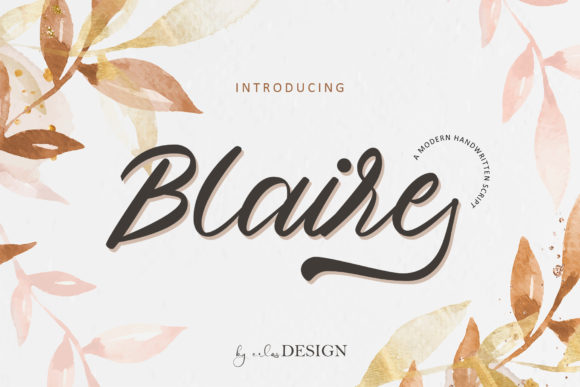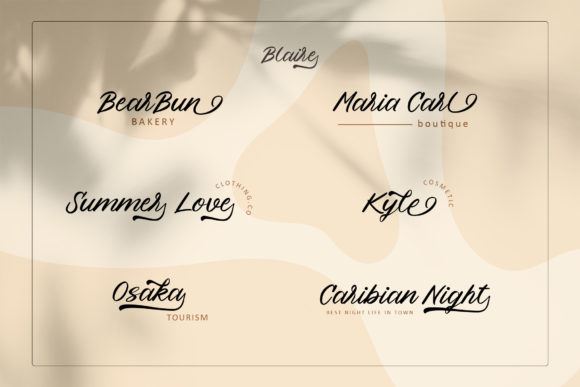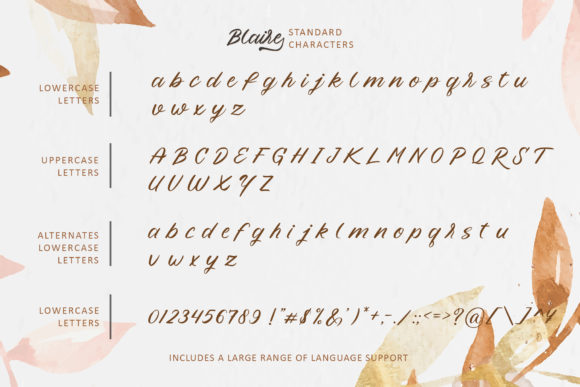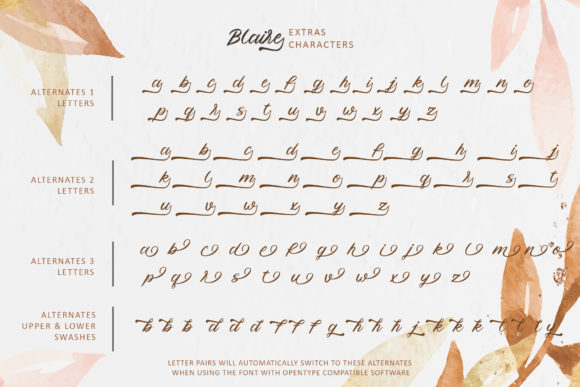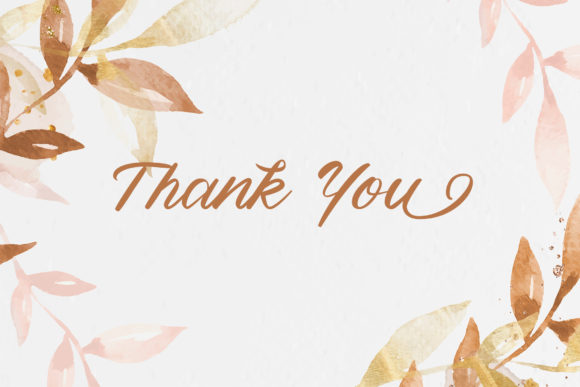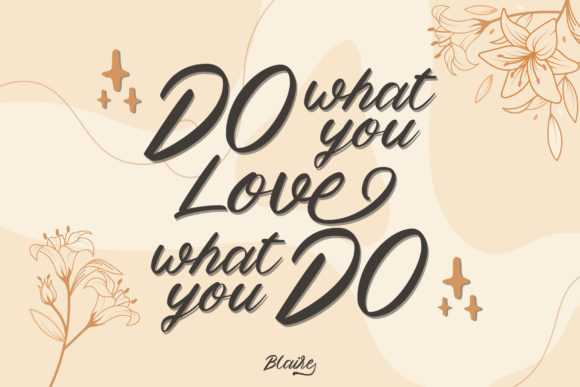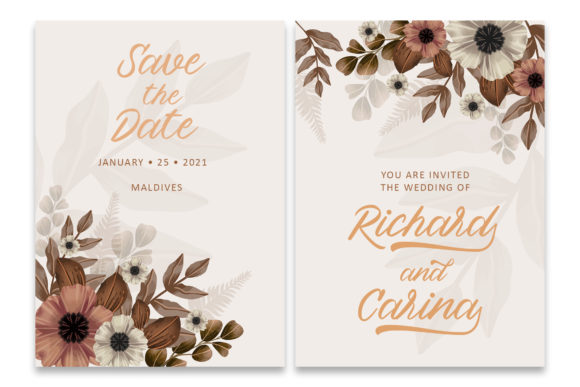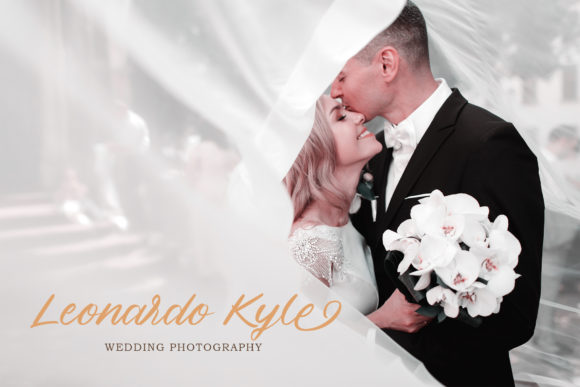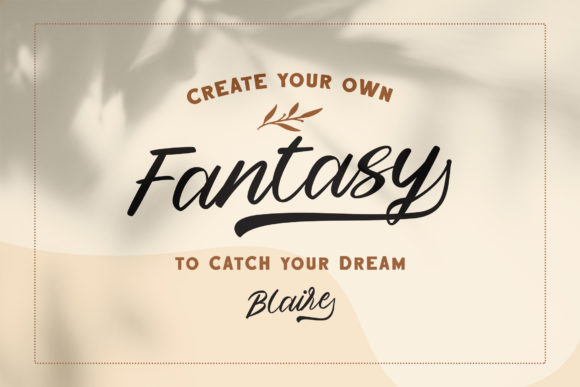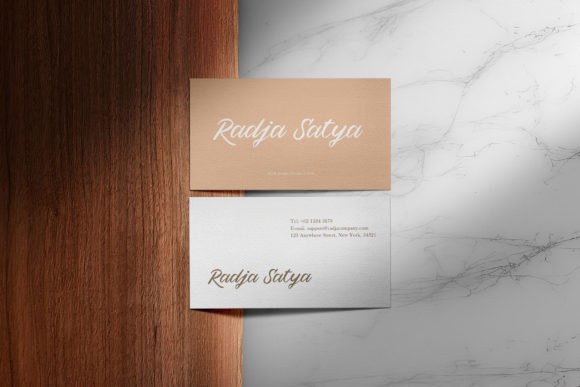
Blaire Font
About Blaire Font
Blaire is a delicate and elegant handwritten font that brings a sense of flowing beauty to your designs. With its well-balanced characters and graceful curves, this font is versatile and suitable for a wide range of design projects. Whether you’re working on wedding invitations, branding materials, or social media graphics, Blaire adds a touch of sophistication and charm.
One of the standout features of Blaire is its extensive set of glyphs and swashes, which are accessible through PUA encoding. This means you have easy access to a variety of stylistic alternates and decorative elements, allowing you to customize and enhance your designs with ease.
The flowing nature of Blaire’s letterforms creates a sense of elegance and grace. Its delicate strokes and smooth curves lend a touch of refinement to your typography, making it a perfect choice for projects that require a sophisticated and romantic feel.
Blaire’s versatility is evident in its ability to complement various design styles. Whether you’re aiming for a vintage-inspired look, a modern and minimalistic aesthetic, or a whimsical and romantic vibe, Blaire adapts effortlessly to suit your vision.
Incorporating Blaire into your designs will elevate them to a new level of elegance and beauty. Its delicate and well-balanced characters add a sense of harmony and refinement, capturing the attention of your audience.
In summary, Blaire is a delicate, elegant, and flowing handwritten font that offers a wide range of design possibilities. With its well-balanced characters and PUA encoding for easy access to glyphs and swashes, Blaire allows you to create beautiful and customized designs. Let the grace and versatility of Blaire font enhance your creative projects and leave a lasting impression.